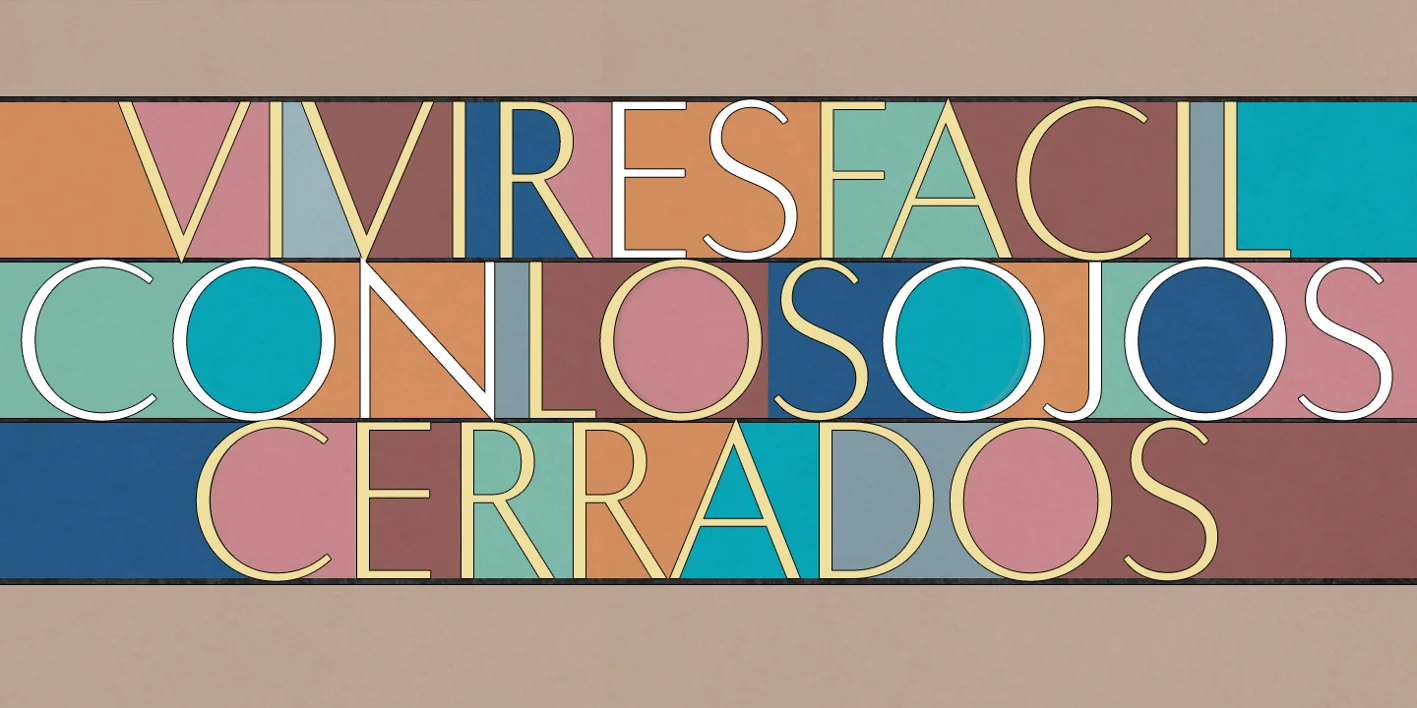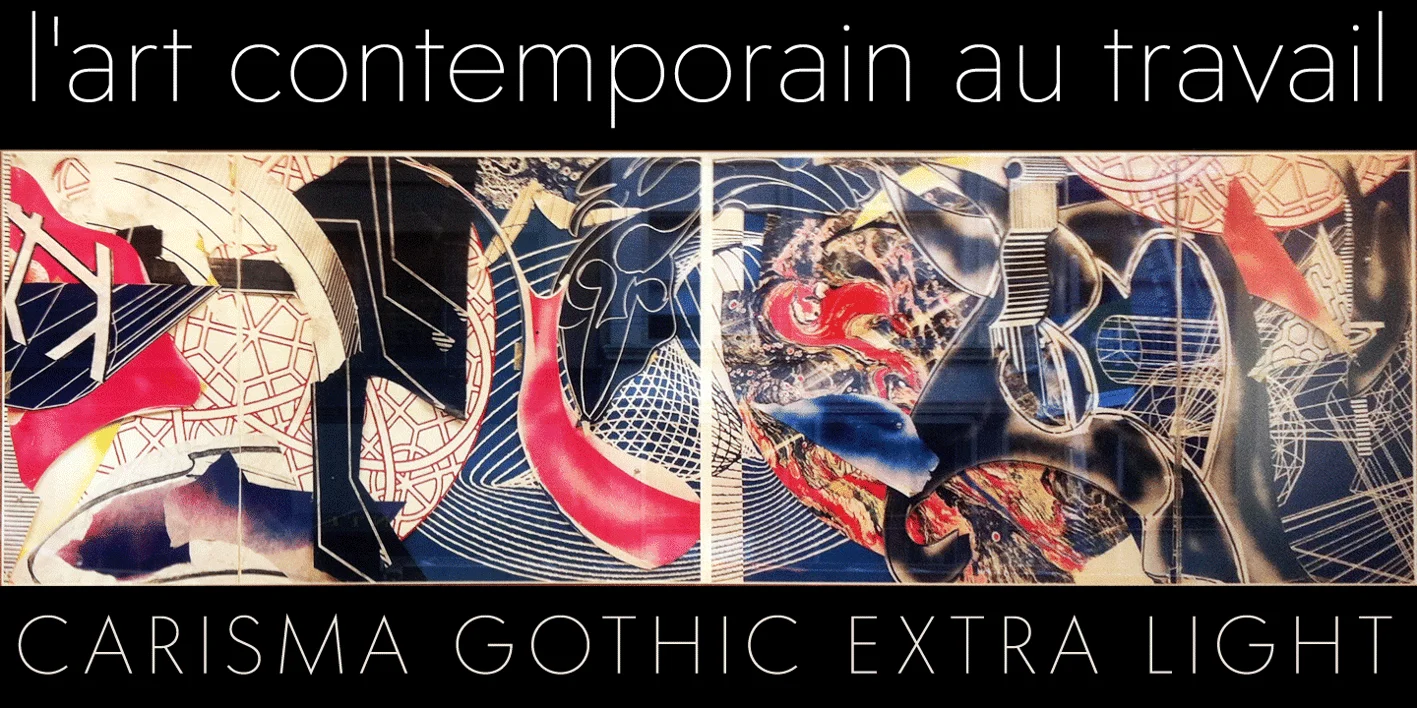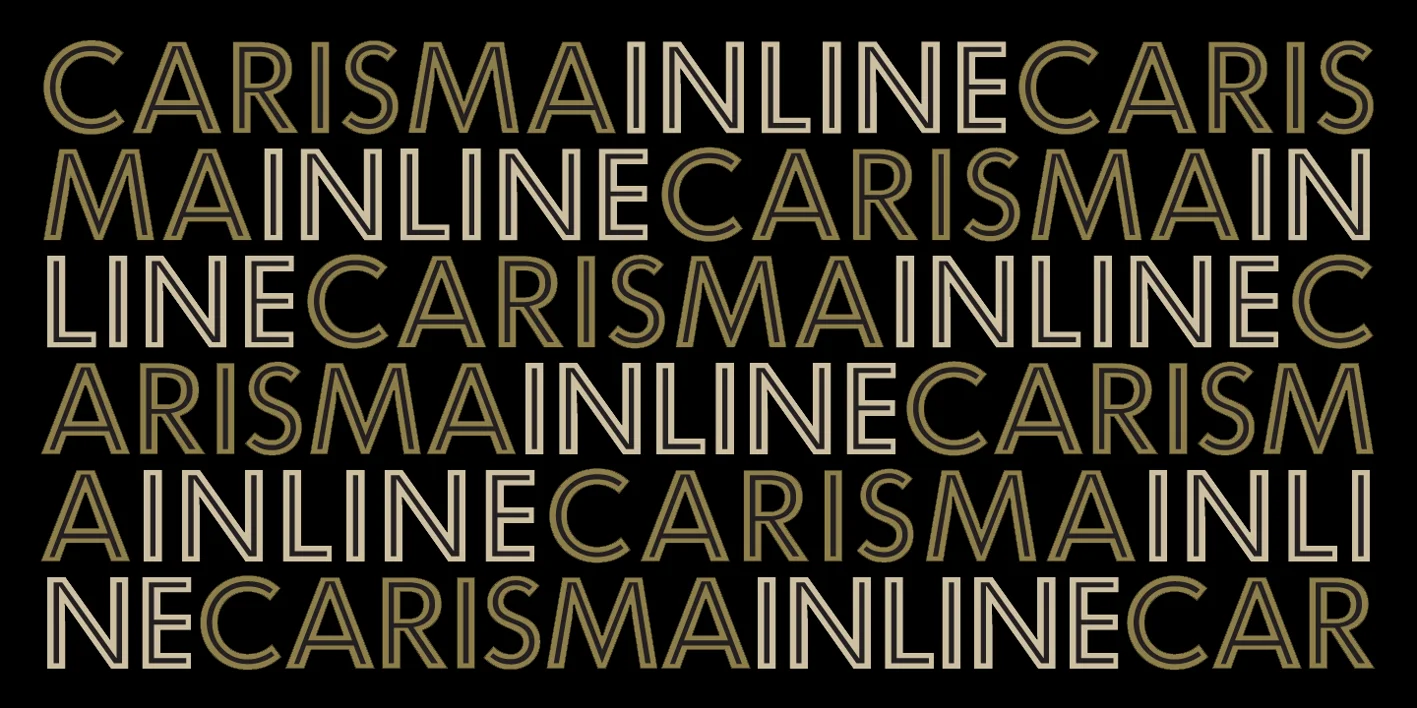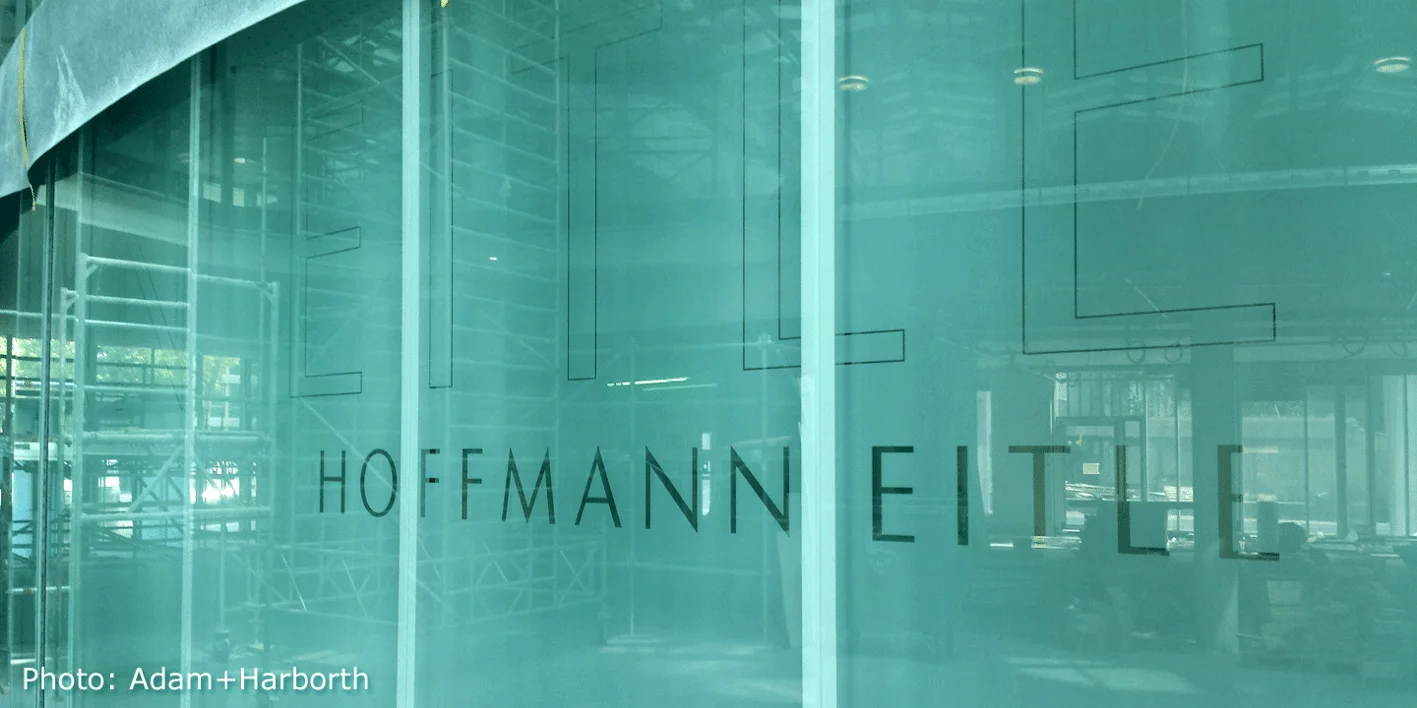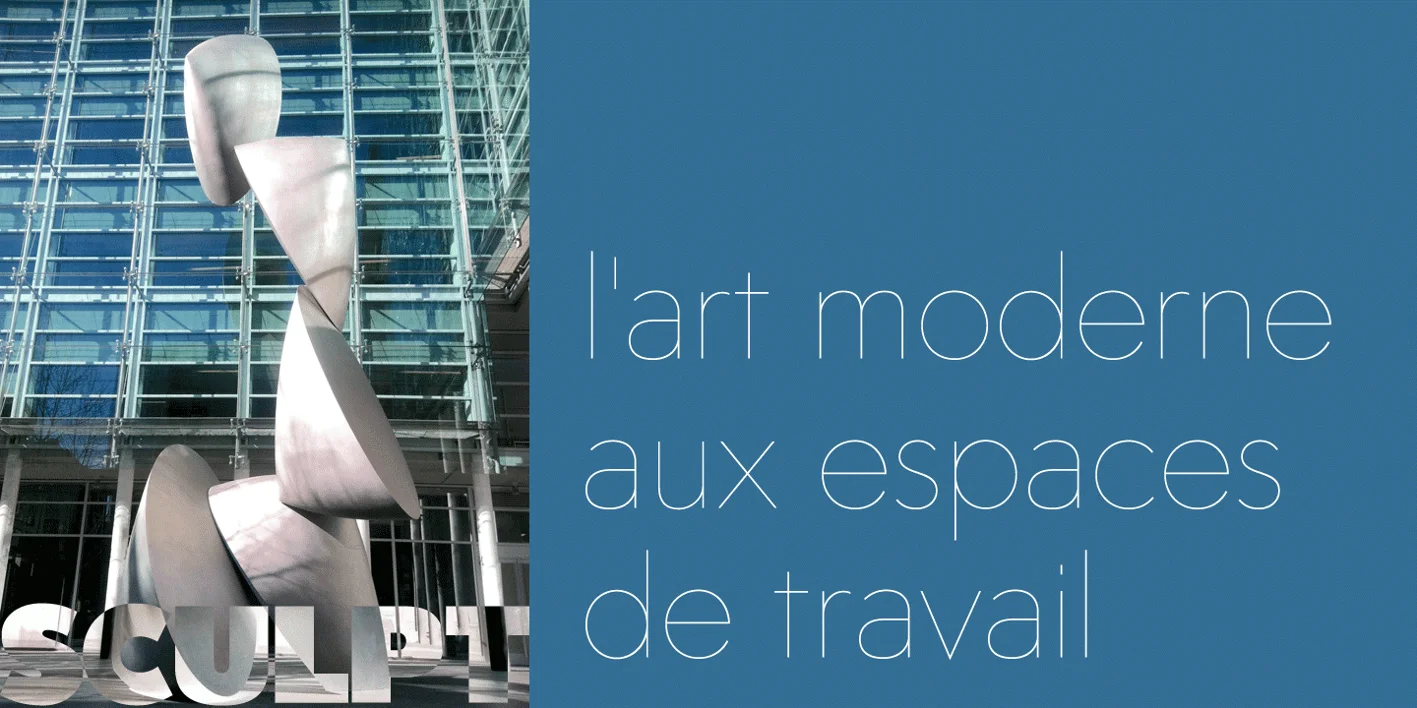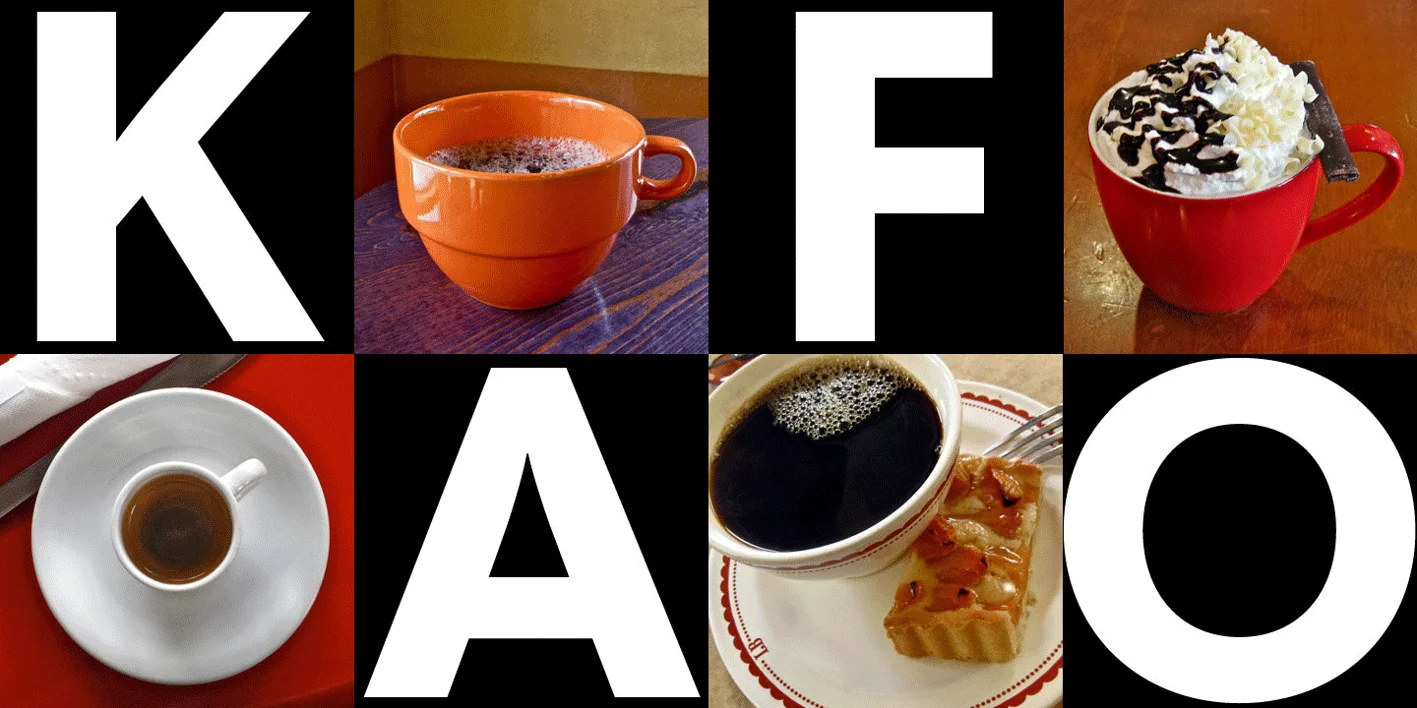
Carisma Font
A good typeface communicates tone before a single word is read. Carisma achieves this through distinctive character without sacrificing readability. The typeface brings a versatile sensibility to a broad range of creative disciplines, with the kind of restraint that lets content lead that holds up whether the work is print-first or screen-first.
In practice, Carisma proves particularly effective for environmental graphics, signage systems, brand identity systems, annual reports, poster creation. Designers reaching for it find that the type decisions feel resolved rather than laboured — a useful quality when client timelines are tight.
The range of applications extends to advertising campaigns, product labels, web design, editorial layouts. That breadth is deliberate: the proportions and spacing were stress-tested across a wide range of mock briefs before the typeface was finalised.
At smaller sizes the design retains its character without becoming cluttered. This resilience across scales makes Carisma equally suitable for a business card and a billboard — a useful property when assets must scale across a campaign.
Freelance designers across print and digital disciplines find Carisma a reliable choice for projects that demand both personality and restraint. The design avoids the self-conscious quirkiness that dates quickly, settling instead for considered distinctiveness that holds up over time.